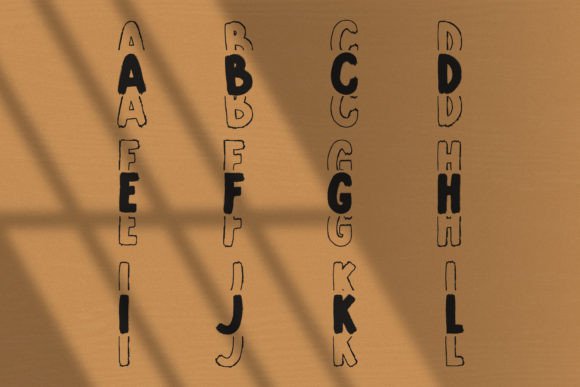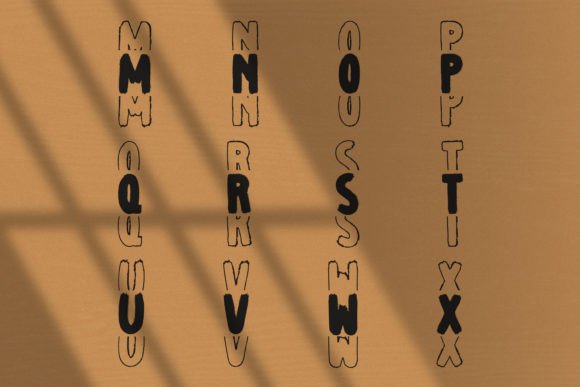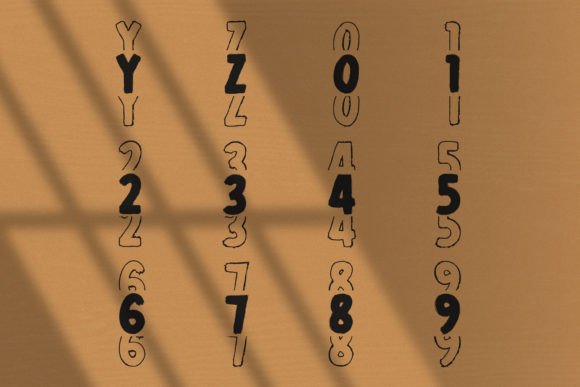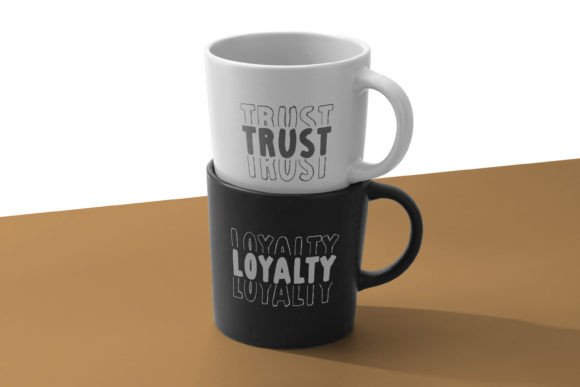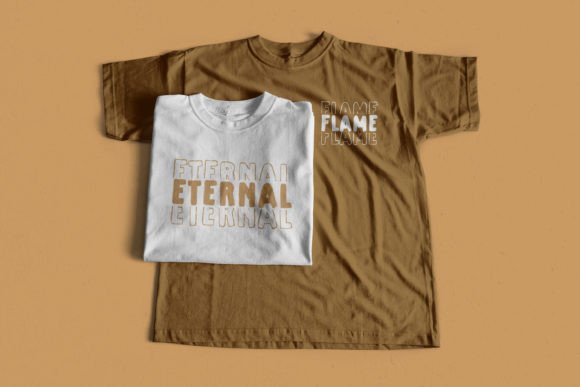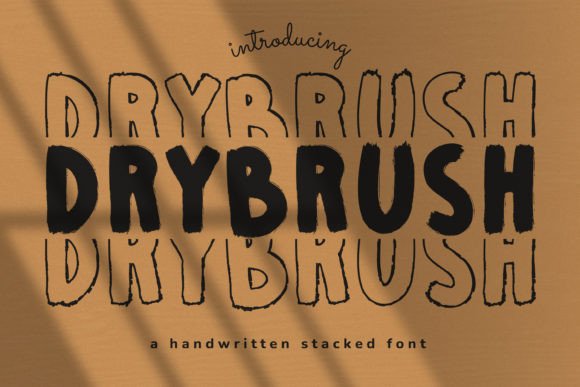
Drybrush Font: Elevate Your Creative Projects with a Unique Display Font
Drybrush is an incredibly unique display font that has been masterfully designed to become a true favorite among designers and crafters. With its distinctive texture and elegant style, this font has the potential to bring each of your creative ideas to the highest level. In this article, we’ll explore the features and benefits of Drybrush Font, and how it can be used to take your designs to the next level.
What is Drybrush Font?
Drybrush Font is a display font that is characterized by its rough, textured appearance. The font is designed to resemble the look of a drybrush, with bold strokes and a distinctive texture that gives it a handmade feel. This unique style makes it perfect for use in creative projects where you want to add a touch of personality and whimsy.
Key Features of Drybrush Font
- Unique Texture: The drybrush texture of this font gives it a distinctive look that sets it apart from other fonts.
- Elegant Style: Despite its textured appearance, Drybrush Font has an elegant and sophisticated style that makes it perfect for use in high-end designs.
- Versatile: This font can be used in a wide range of creative projects, from branding and advertising to packaging and signage.
- Easy to Read: Despite its bold and textured appearance, Drybrush Font is surprisingly easy to read, making it perfect for use in headlines and titles.
Benefits of Using Drybrush Font
So why should you choose Drybrush Font for your next creative project? Here are just a few benefits of using this unique display font:
- Adds Personality: Drybrush Font adds a touch of personality and whimsy to your designs, setting them apart from more traditional and generic fonts.
- Creates Emotional Connection: The handmade feel of this font creates an emotional connection with your audience, making your designs more relatable and engaging.
- Versatile: Drybrush Font can be used in a wide range of creative projects, making it a valuable addition to your font library.
- High-Quality: This font is designed to high-quality standards, ensuring that it looks great in any design.
How to Use Drybrush Font
Drybrush Font is easy to use and can be incorporated into a wide range of creative projects. Here are a few ideas to get you started:
- Branding and Advertising: Use Drybrush Font to create bold and eye-catching headlines and titles for your branding and advertising campaigns.
- Packaging: Add a touch of personality to your packaging with Drybrush Font, making your products stand out on store shelves.
- Signage: Use this font to create eye-catching signage that grabs the attention of your audience.
- Digital Designs: Drybrush Font can also be used in digital designs, such as social media graphics and website headers.
Tips and Tricks for Using Drybrush Font
Here are a few tips and tricks to help you get the most out of Drybrush Font:
- Use it Sparingly: While Drybrush Font is a beautiful font, it can be overwhelming if used too much. Use it sparingly to add emphasis and create visual interest.
- Pair it with Other Fonts: Drybrush Font pairs well with a wide range of other fonts. Experiment with different combinations to find the perfect look for your design.
- Experiment with Colors: The drybrush texture of this font looks great in a wide range of colors. Experiment with different colors to find the perfect look for your design.
Drybrush Font is a unique and versatile display font that has the potential to bring each of your creative ideas to the highest level. With its distinctive texture and elegant style, this font is perfect for use in a wide range of creative projects. Whether you’re a designer, crafter, or DIY enthusiast, Drybrush Font is a valuable addition to your font library.